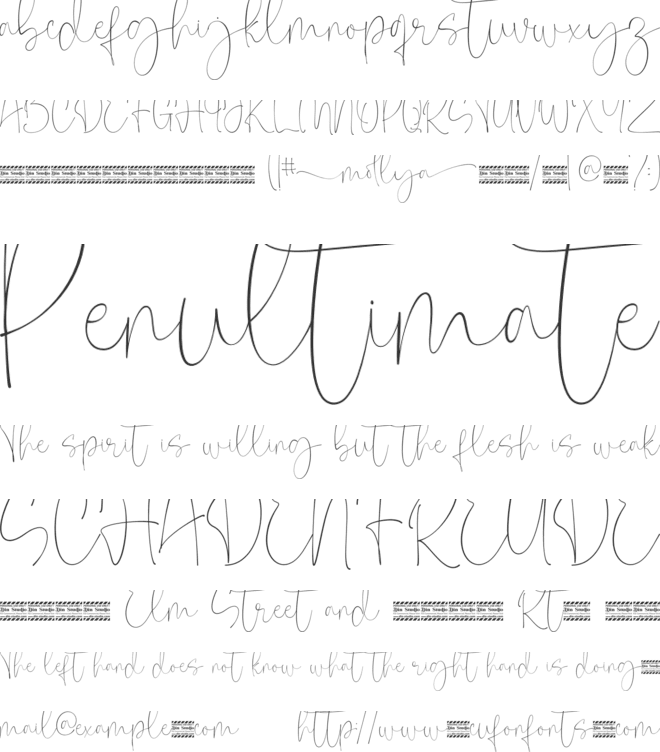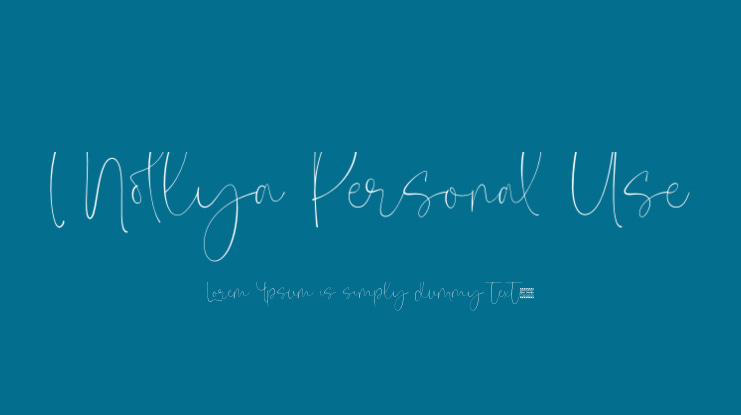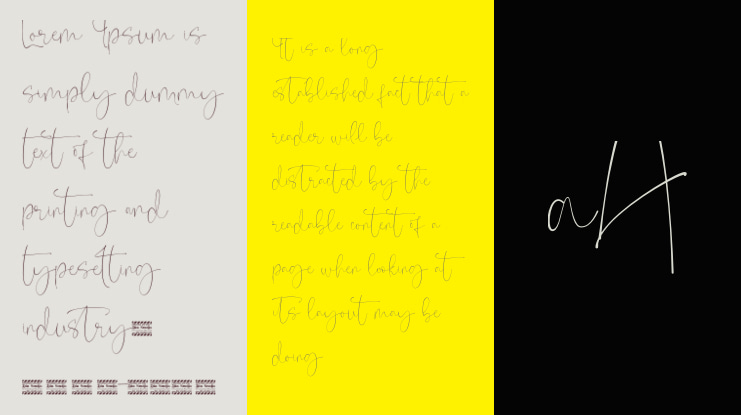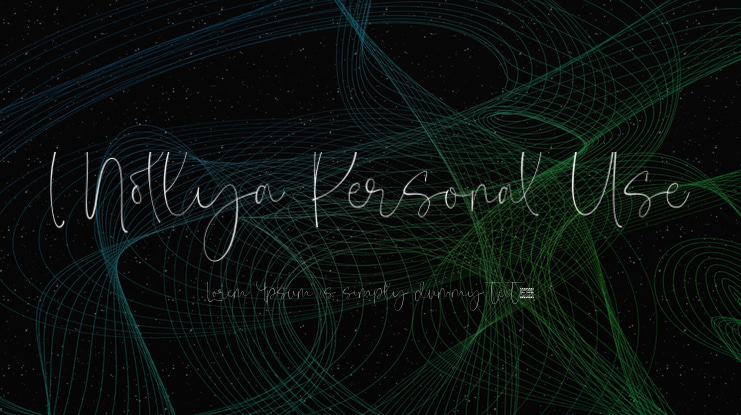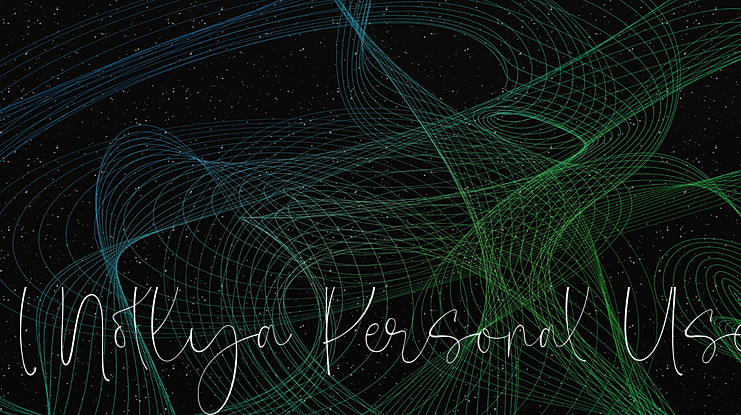
Product Description :
Mollya is a signature typeface that comes with elegant themes. It is so suitable for greeting cards, branding materials, business cards, quotes, print, t-shirt, mug, merchandise, packaging, posters, and
more!